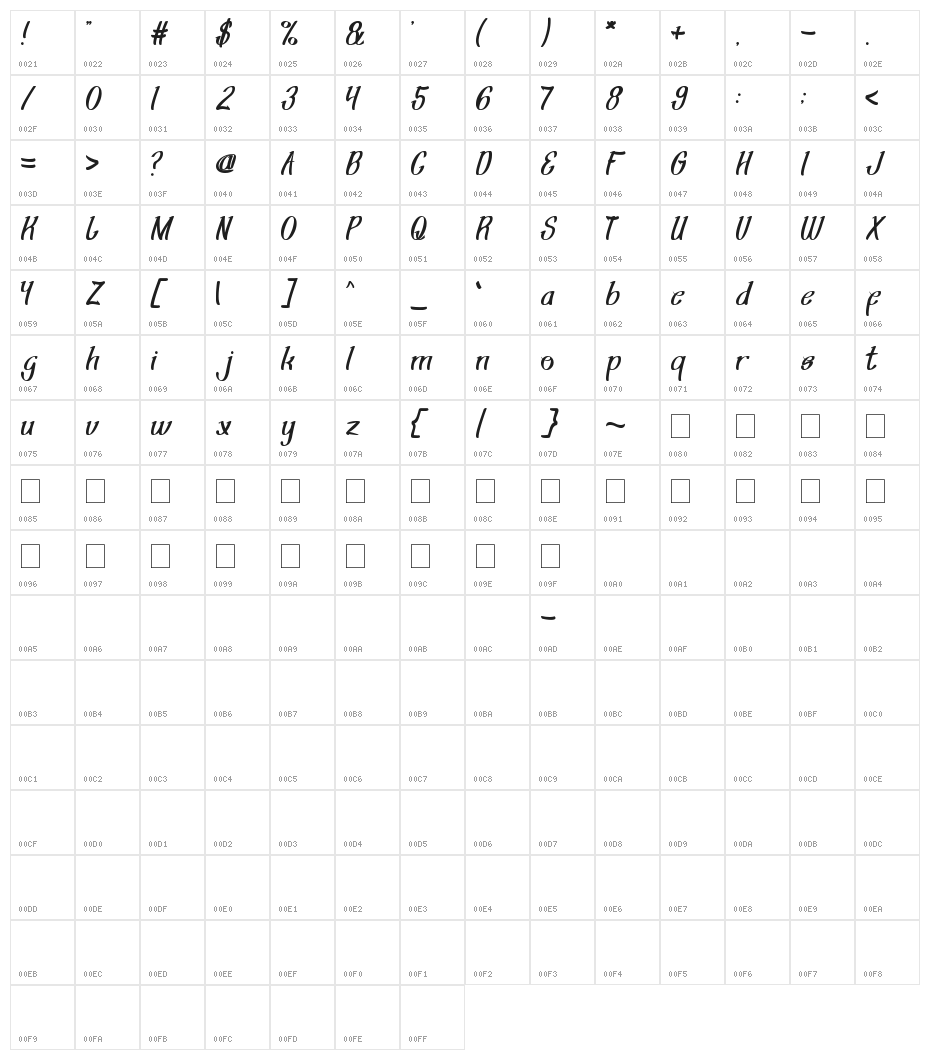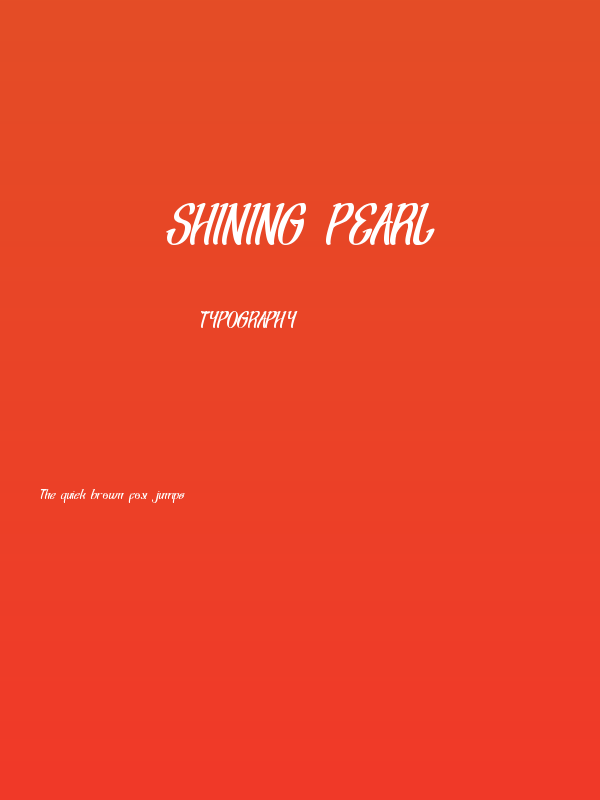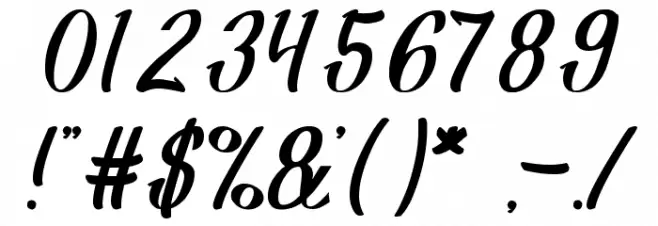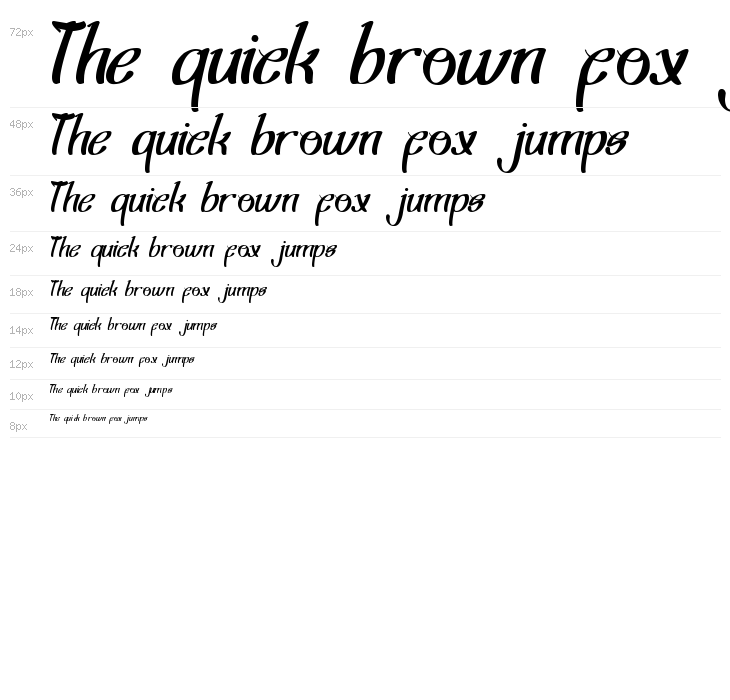
Shining Pearl Font
Shining Pearl Description
This font features a dynamic and flowing script style, characterized by its elegant and cursive letterforms. The uppercase letters are bold and slightly slanted, giving a sense of movement and grace. The lowercase letters maintain a consistent style, with smooth curves and a slight inclination that enhances readability. The numerals are distinct and maintain the same flowing aesthetic, making them easily distinguishable. Special characters are designed to complement the overall style, ensuring a cohesive look across all text. This font is ideal for projects that require a touch of elegance and sophistication.
| Overall Style | Elegant, Decorative |
| Use Case | Headlines, Logos, Invitations |
| Proposed Projects | Ideal for wedding invitations, elegant branding, greeting cards, and decorative headlines. |